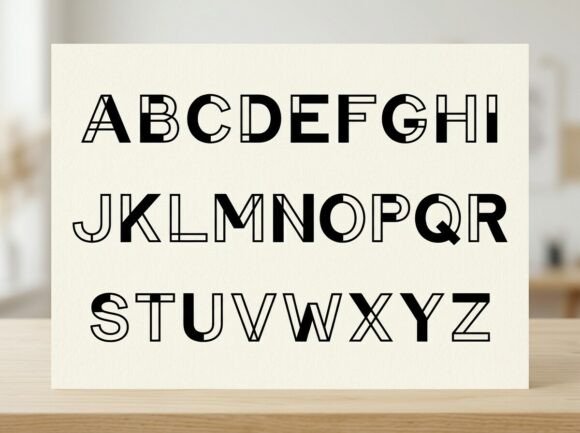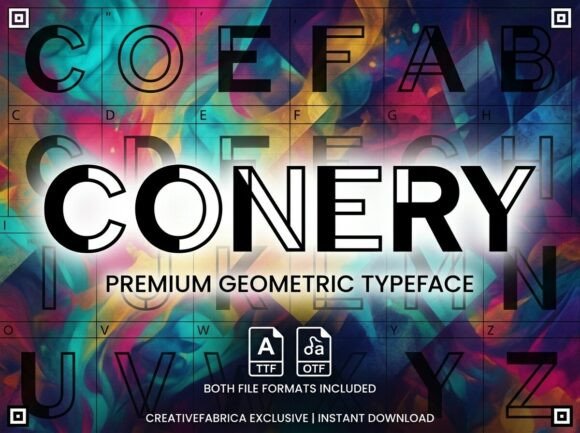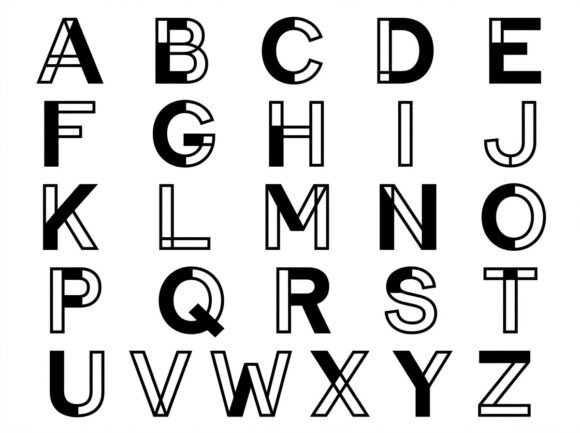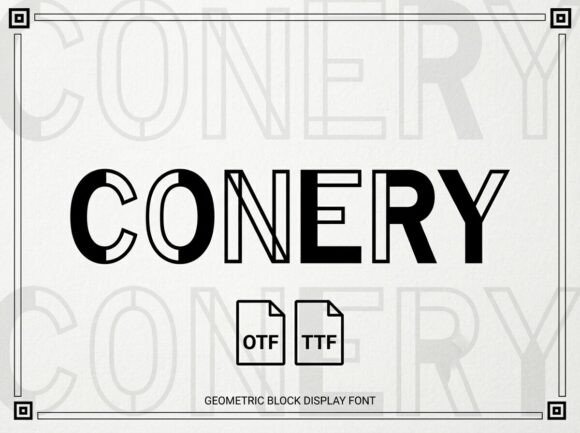
Introducing Conery Font: A Stunning Decorative Display Font
Are you tired of using the same old fonts for your designs? Look no further than Conery Font, a unique and artistic display font that’s sure to turn heads. With its strong visual personality and decorative elements, this font is perfect for creators who want to add a touch of elegance and sophistication to their work.
What is Conery Font?
Conery Font is a decorative display font designed to be the center of attention. Its unique artistic elements and strong visual personality make it perfect for bold headlines, artistic logos, and creative packaging. This font is versatile enough to be used in a variety of design projects, from branding and advertising to packaging and signage.
Key Features of Conery Font
• Unique Artistic Elements: Conery Font features unique artistic elements that set it apart from other fonts. Each letter is carefully crafted to be a work of art, making it perfect for high-impact headlines and logos.
• Strong Visual Personality: This font has a strong visual personality that’s sure to grab attention. Its decorative elements and bold design make it perfect for creators who want to make a statement.
• Versatile: Conery Font is versatile enough to be used in a variety of design projects, from bold headlines and artistic logos to creative packaging and signage.
• Professional and Polished Finish: Despite its bold and decorative design, Conery Font maintains a professional and polished finish that’s perfect for high-end designs.
IMPORTANT NOTE BEFORE PURCHASE: Conery Font is an ALL-CAPS (Uppercase Only) display typeface. It does not include lowercase letters. It is specifically designed for high-impact headlines, logos, and decorative initials where every letter is a work of art.
Why Choose Conery Font?
There are many reasons why Conery Font is a great choice for designers and crafters. Here are just a few:
• Stand Out from the Crowd: With Conery Font, you can create designs that stand out from the crowd. Its unique artistic elements and strong visual personality make it perfect for creators who want to make a statement.
• High-Quality Design: This font is designed to high-quality standards, ensuring that your designs look professional and polished.
How to Use Conery Font
Conery Font is perfect for a variety of design projects, including:
• Headlines and Logos: Use Conery Font to create bold and eye-catching headlines and logos that grab attention.
• Packaging and Signage: This font is perfect for creative packaging and signage projects where you want to make a statement.
• Branding and Advertising: Use Conery Font to create high-impact branding and advertising materials that stand out from the crowd.
In conclusion, Conery Font is a stunning decorative display font that’s perfect for creators who want to add a touch of elegance and sophistication to their work. With its unique artistic elements, strong visual personality, and versatility, this font is sure to be a hit with designers and crafters. So why wait? Purchase Conery Font today and start creating stunning designs that stand out from the crowd!